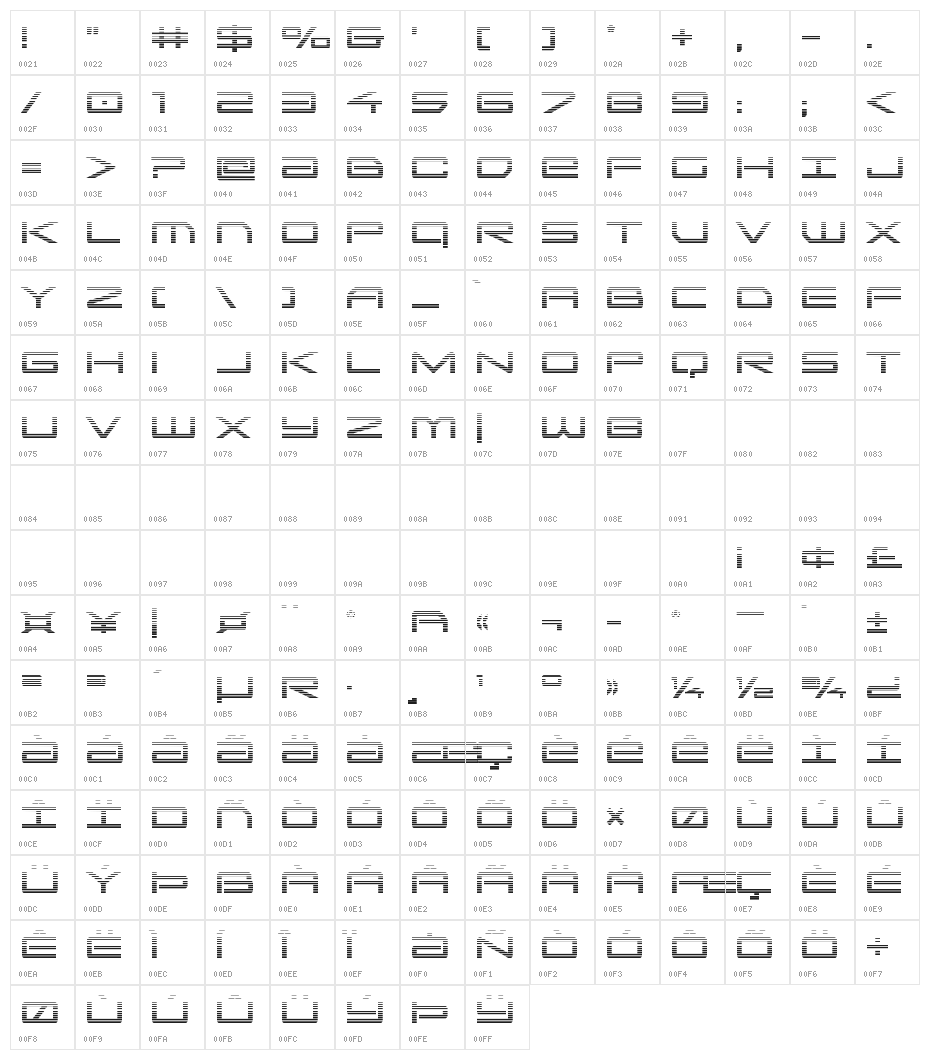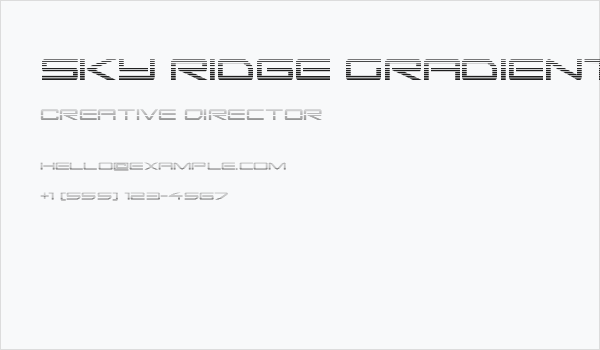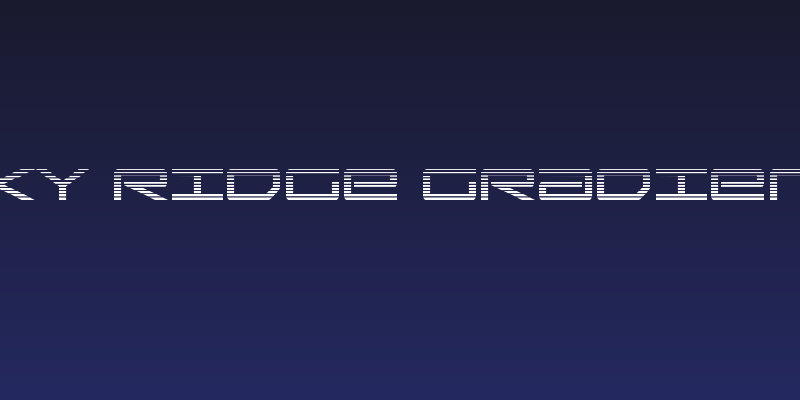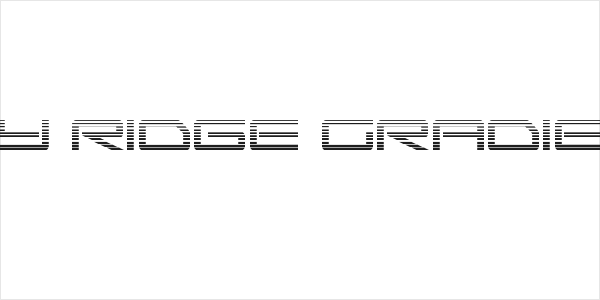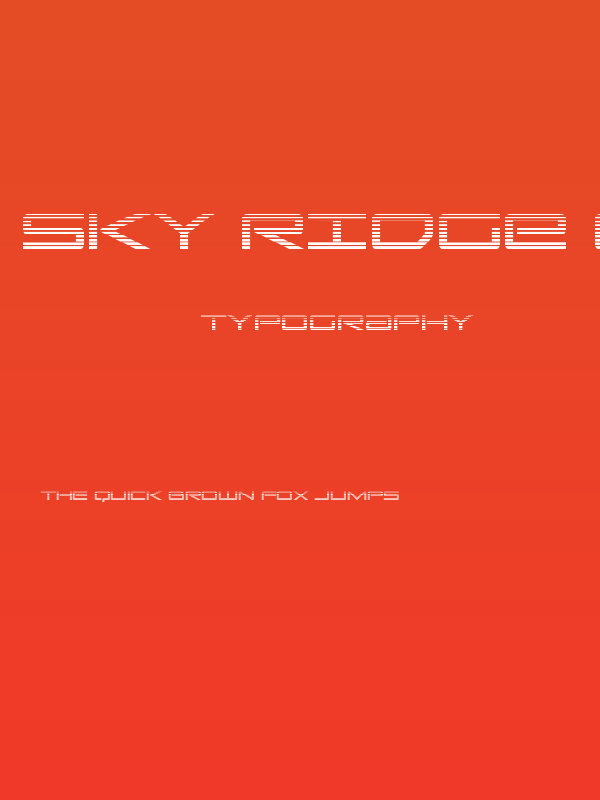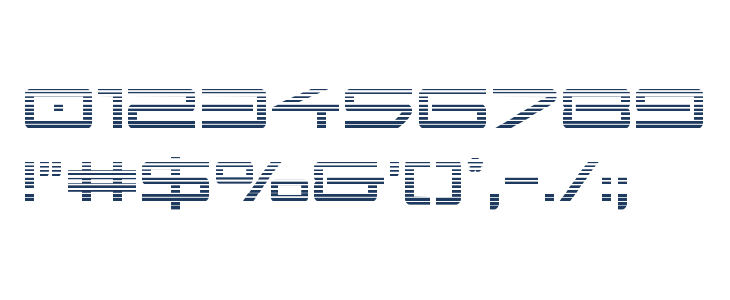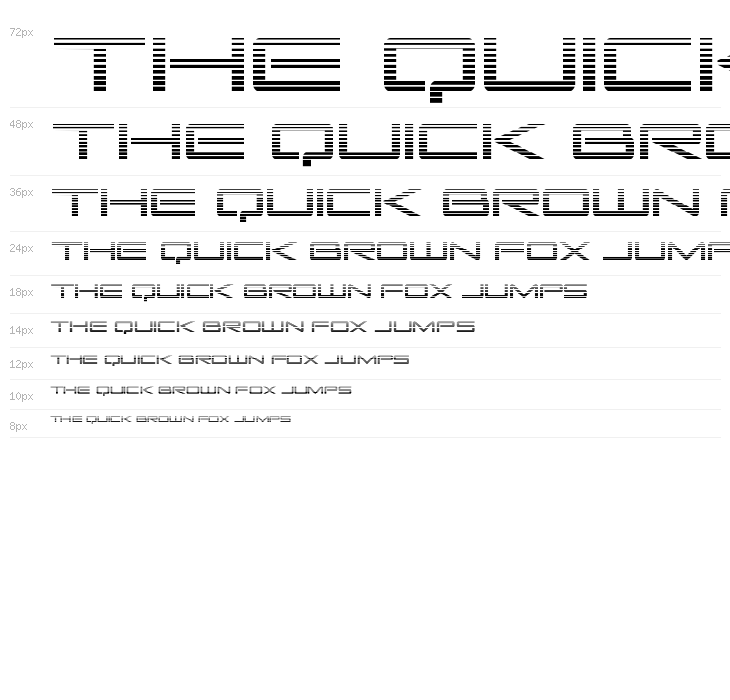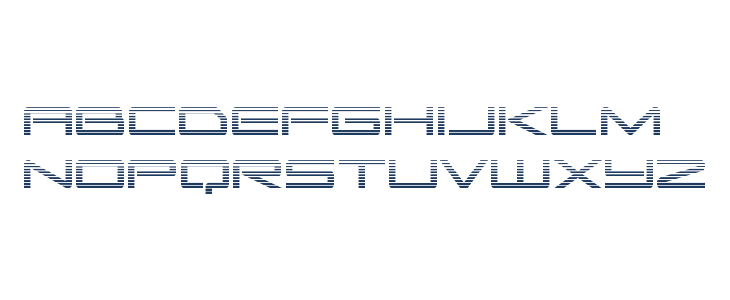
Sky Ridge Gradient Font
Sky Ridge Gradient Description
This font features a futuristic and geometric design, characterized by its distinct horizontal lines that create a striped effect across each character. The uppercase and lowercase letters maintain a consistent style, with sharp angles and clean edges that give it a modern and technical appearance. The numerals and special characters follow the same design principles, ensuring uniformity throughout the typeface. Its unique style makes it stand out, ideal for projects that require a bold and innovative look.
| Proposed Projects | Ideal for technology branding, sci-fi movie posters, video game titles, and modern digital interfaces. |